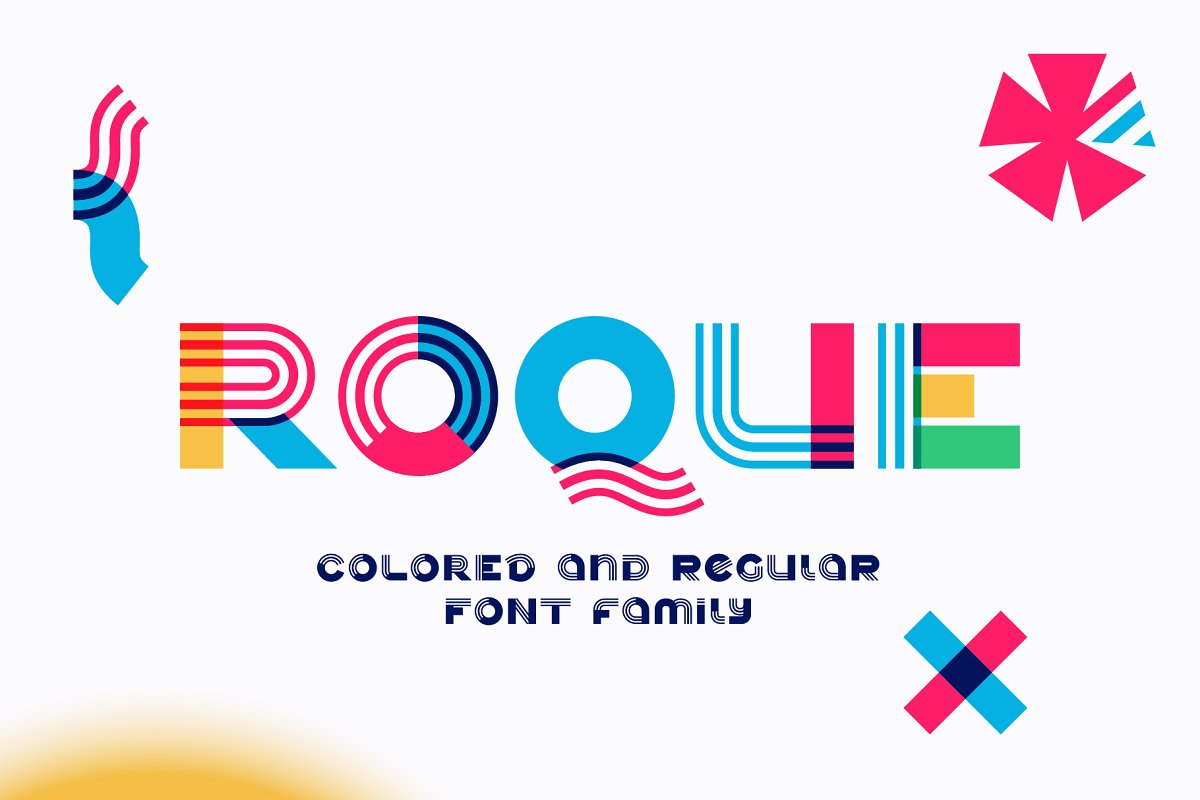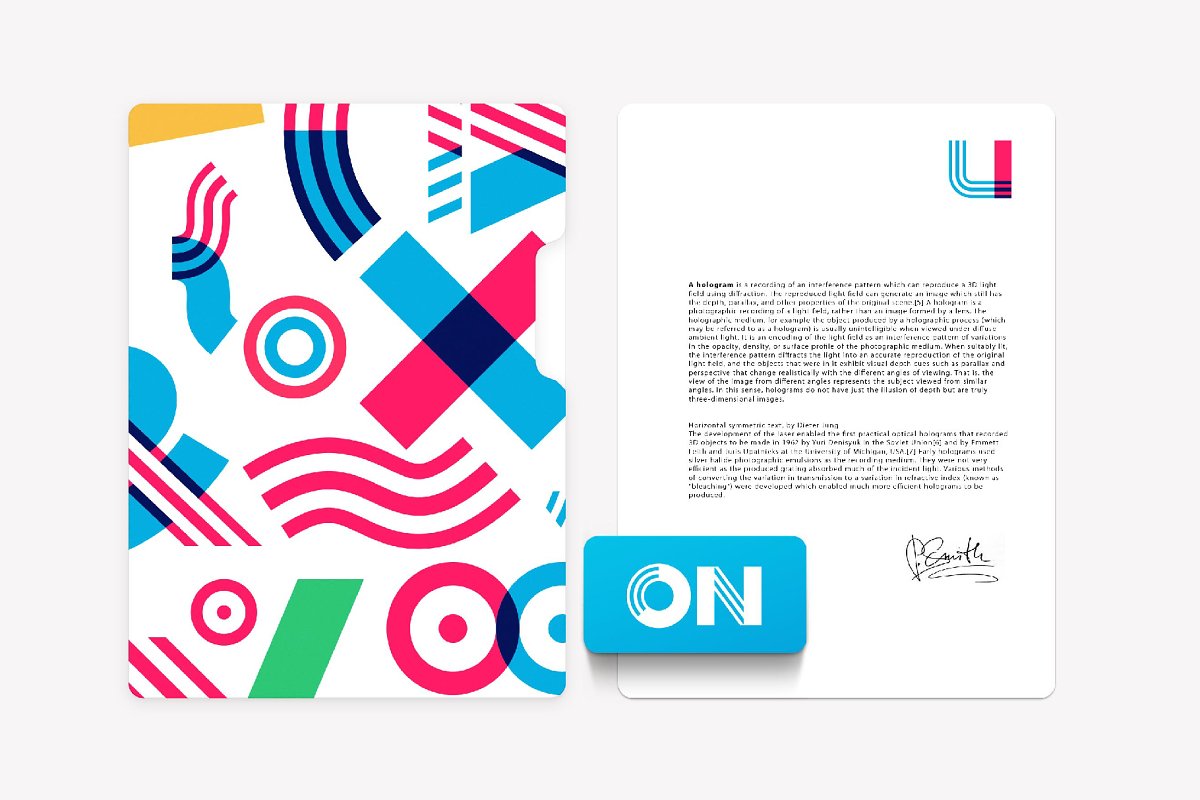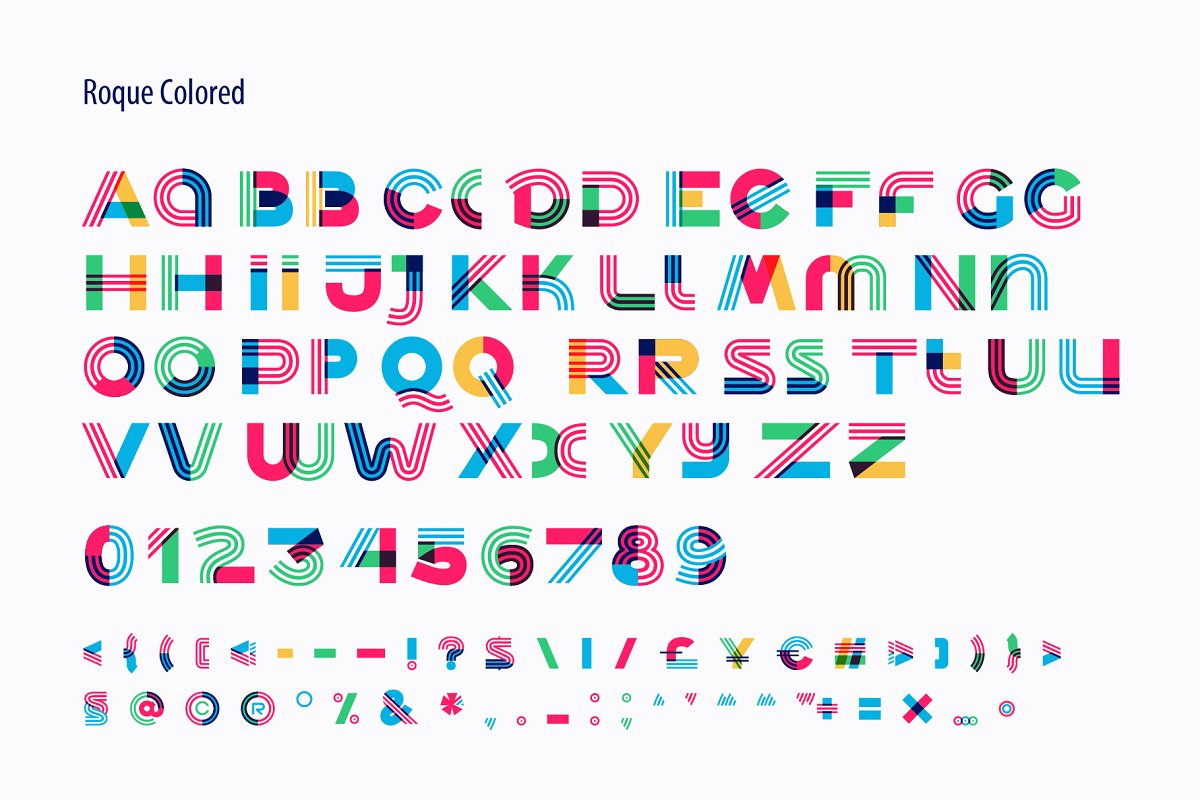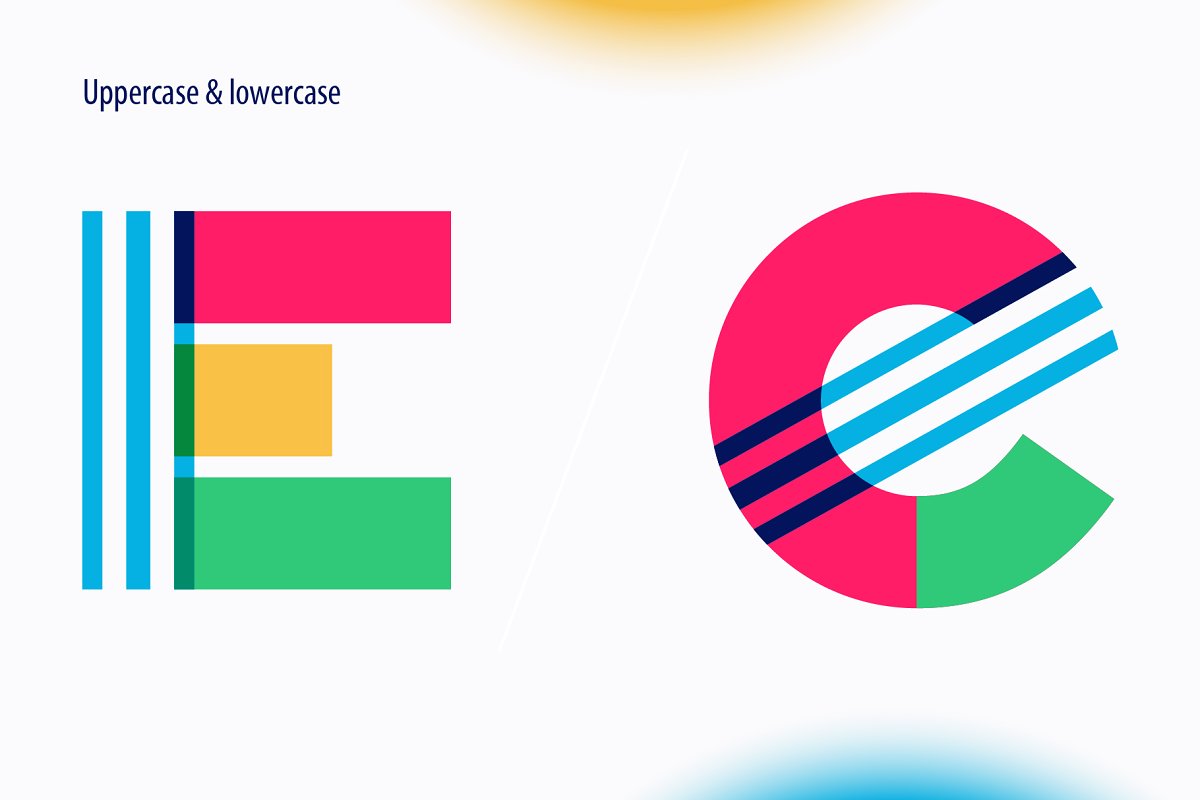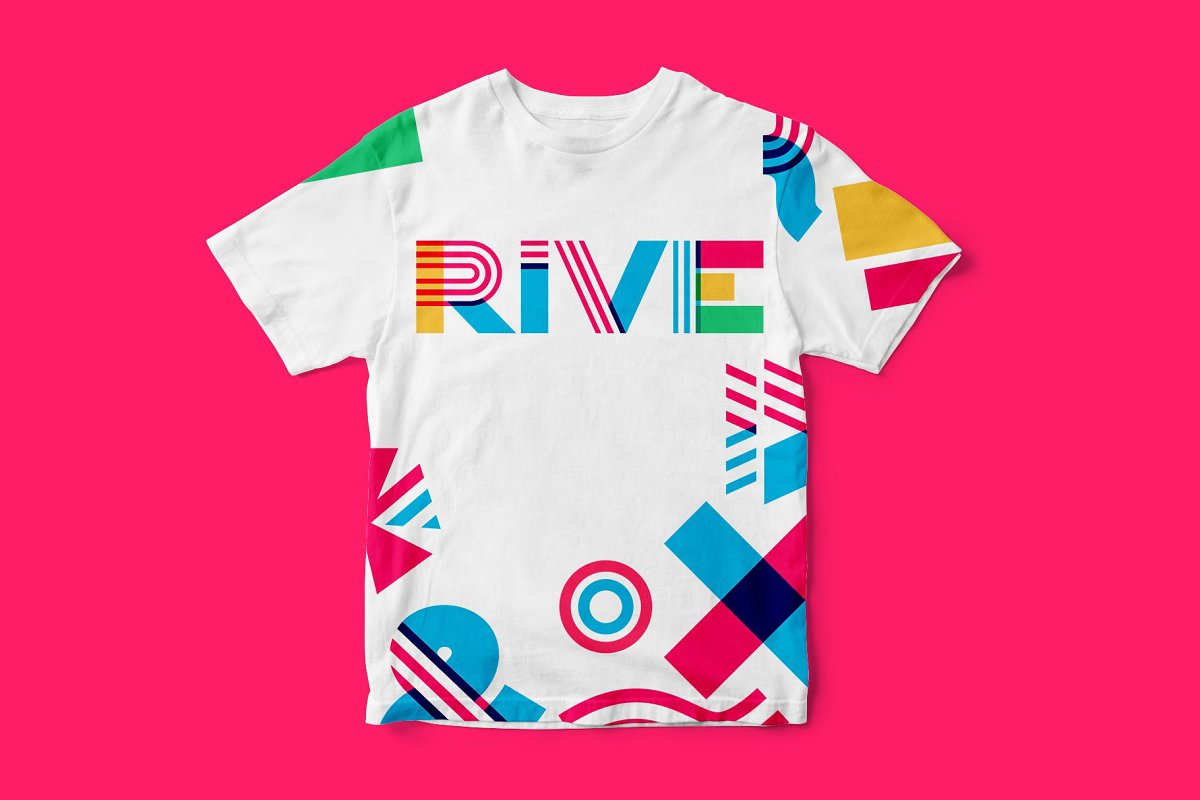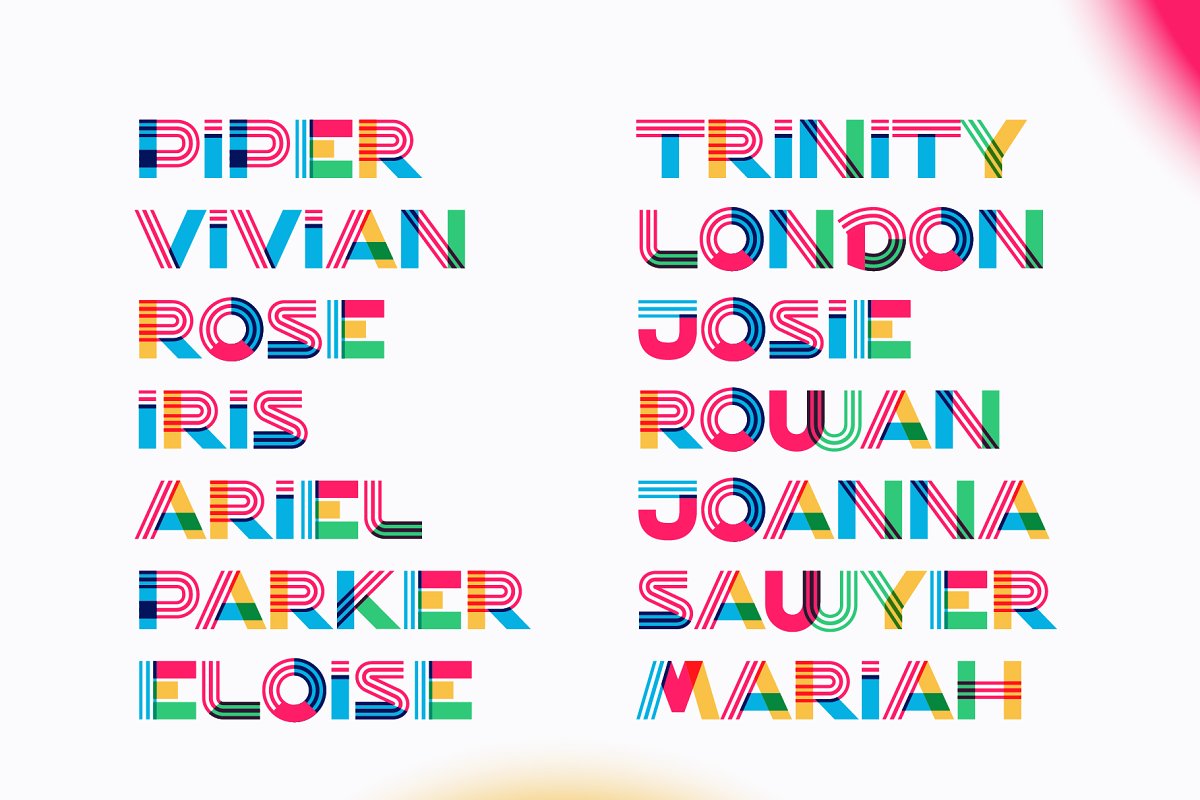
About the Roque color Font
Hey, friends!I’m here for you with my new colored font Roque, All the letters in this font are colored brightly and vividly with colors overlay, You can use it in your corporate identity, in magazines, posters, clothes design, and others, You can use color fonts in PS since CC 2017, AI since CC 2018, ID since CC 2019, QuarkXPress since 2018, Pixelmator, Sketch, Affinity Designer Since macOS 10